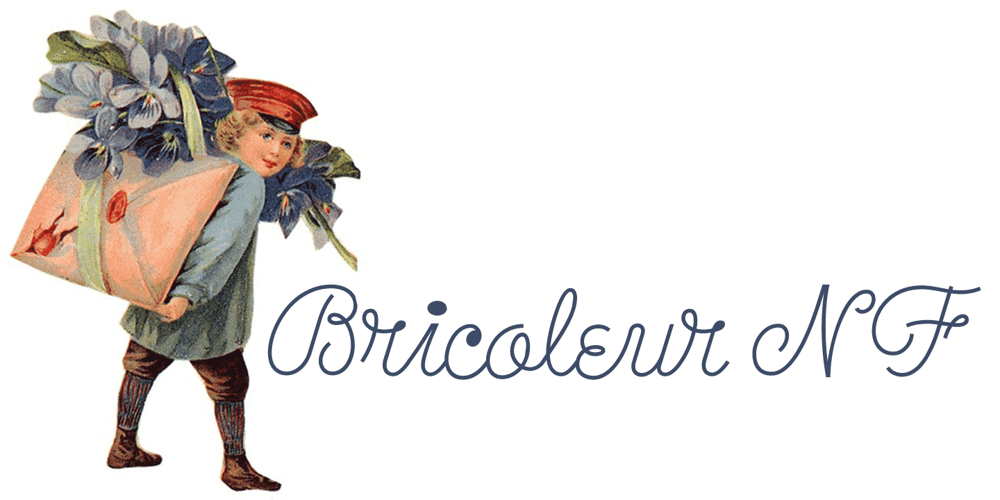
Bricoleur NF
Bricoleur NF font
Bricoleur NF Font Family was designed by published by Nick’s Fonts. Bricoleur NF contains 1 styles and family package options. This naïve script was discovered in a French printers’ magazine from 1927. Its total lack of pretension makes it warm and inviting. Both versions of this font support the Latin 1252, Central European 1250, Turkish 1254 and Baltic 1257 codepages.